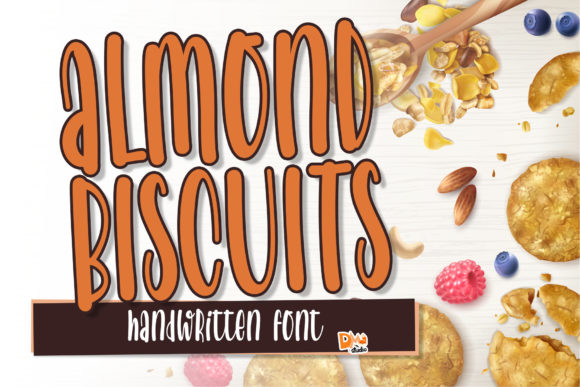
The Sweet Delight of Almond Biscuits Font
I’ll never forget the moment I stumbled upon Almond Biscuits font while working on a whimsical branding project for a bakery. I was on a mission to find the perfect handwritten font that would capture the warmth and playfulness of their brand. Hours of scrolling through font libraries had left me feeling like a cookie crumb trail – lost and confused. That’s when I discovered Almond Biscuits, and it was love at first sight! 💕
So, what makes Almond Biscuits font so special? Let’s dive into the good stuff and a few quirks I’ve discovered.
- ✨ Playful and cute handwritten style that’s perfect for creative projects
- 💫 Unique character variations that add visual interest
- 🎨 Great for branding, packaging, and digital designs
- 🤔 Limited availability of stylistic alternates, which might limit its use in very specific design contexts
- ⚠️ May not be the best fit for very formal or corporate designs, as it’s quite playful
Designer Inspiration: The Story Behind Almond Biscuits
Almond Biscuits font was crafted with love by a talented designer who wanted to create a font that felt like a warm hug. Inspired by the sweetness of baked goods and the joy of creative expression, this font is designed to bring a smile to your face.
Q: What type of projects is Almond Biscuits font best suited for?
A: Almond Biscuits font is perfect for creative projects, branding, packaging, and digital designs that require a playful touch.
Q: Is Almond Biscuits font available in different weights or styles?
A: Currently, Almond Biscuits font comes in a single weight, but its versatility and charm make it easy to adapt to various design contexts.